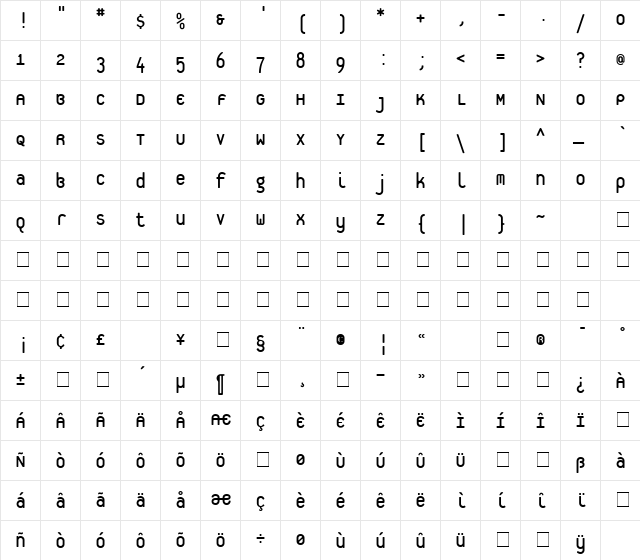
Platelet Medium
Design Context for Platelet Typeface
Platelet offers clean, dependable letterforms without strong stylistic allegiance, making it a practical choice for designers who need flexibility.